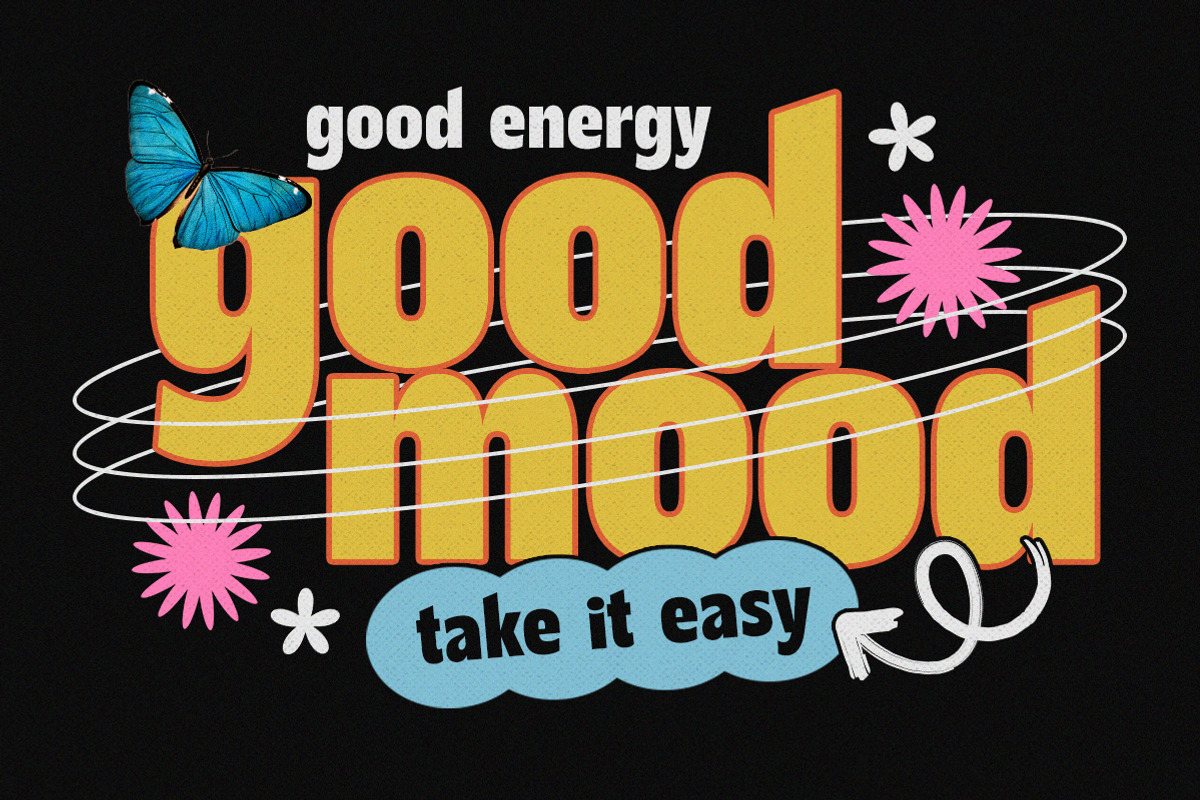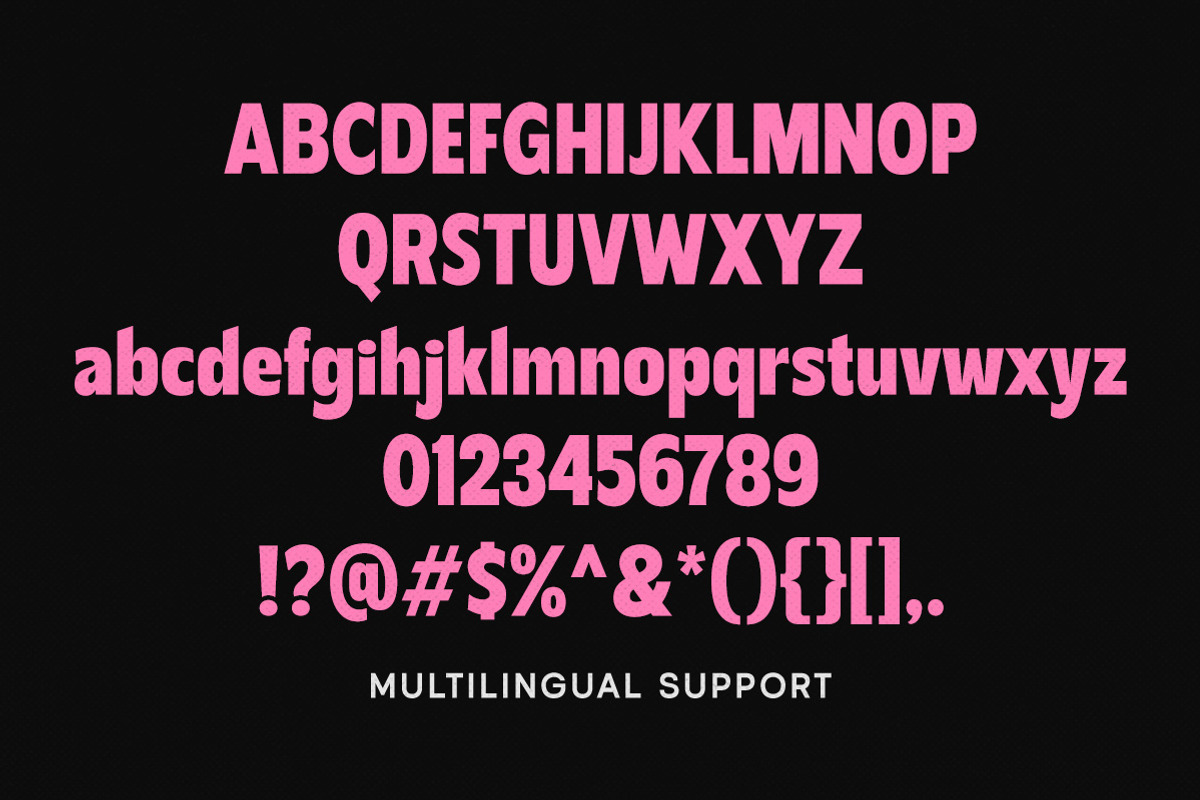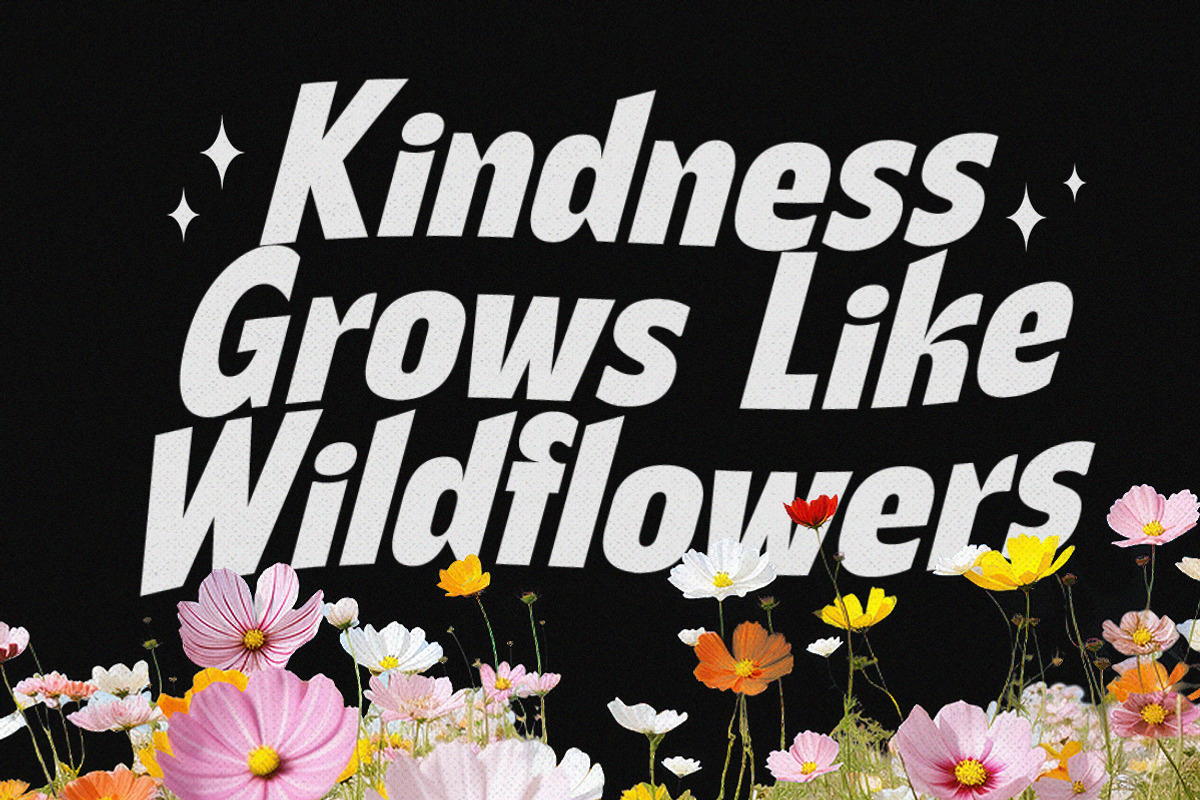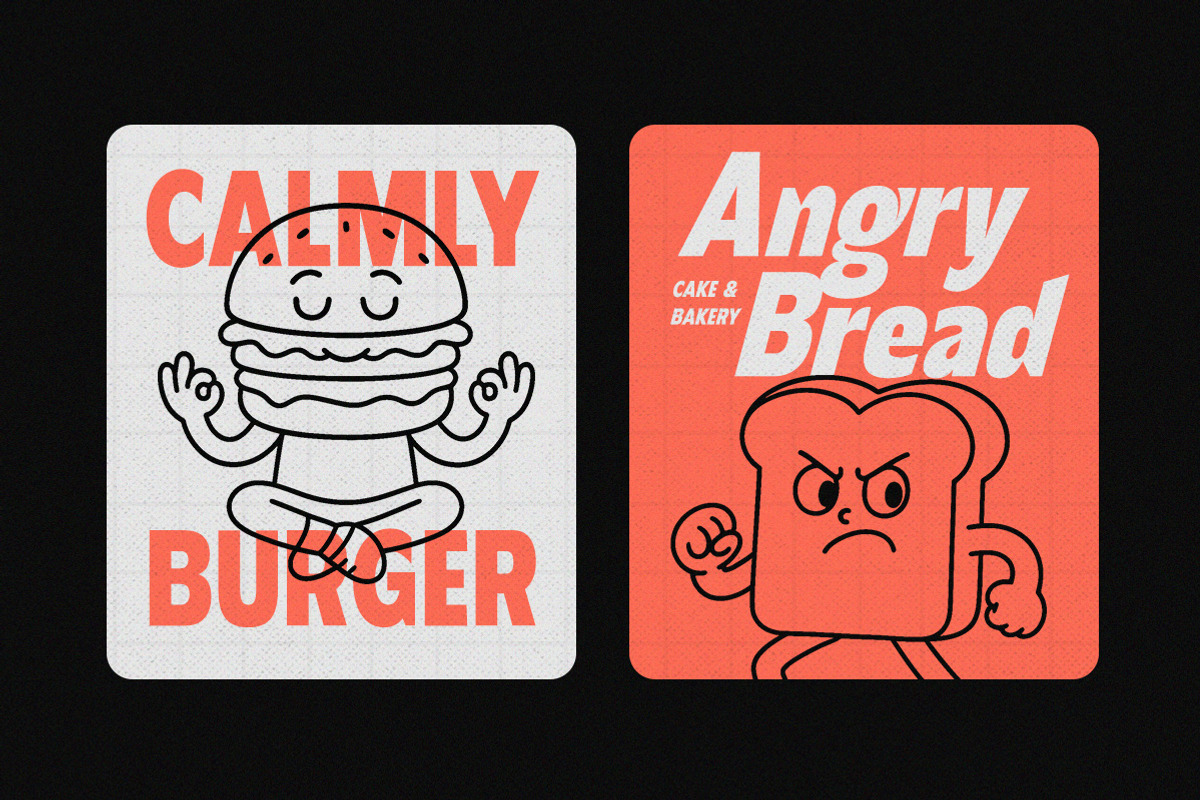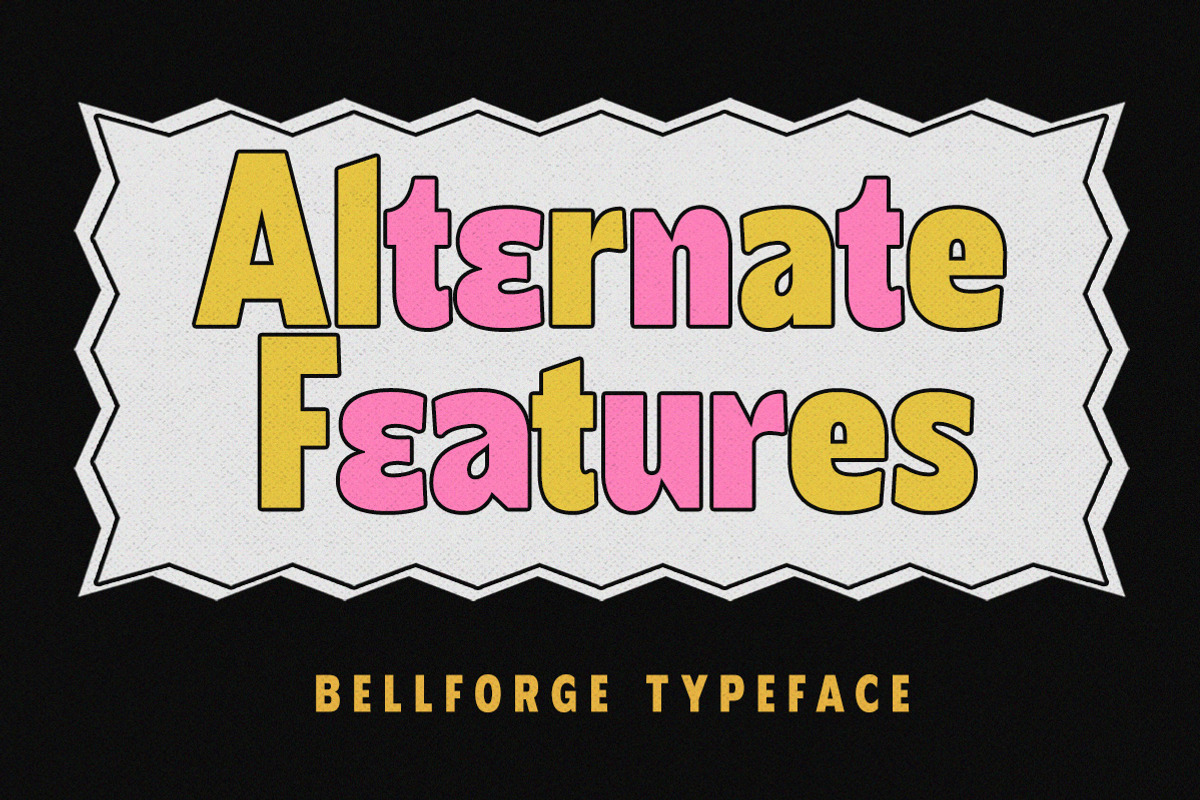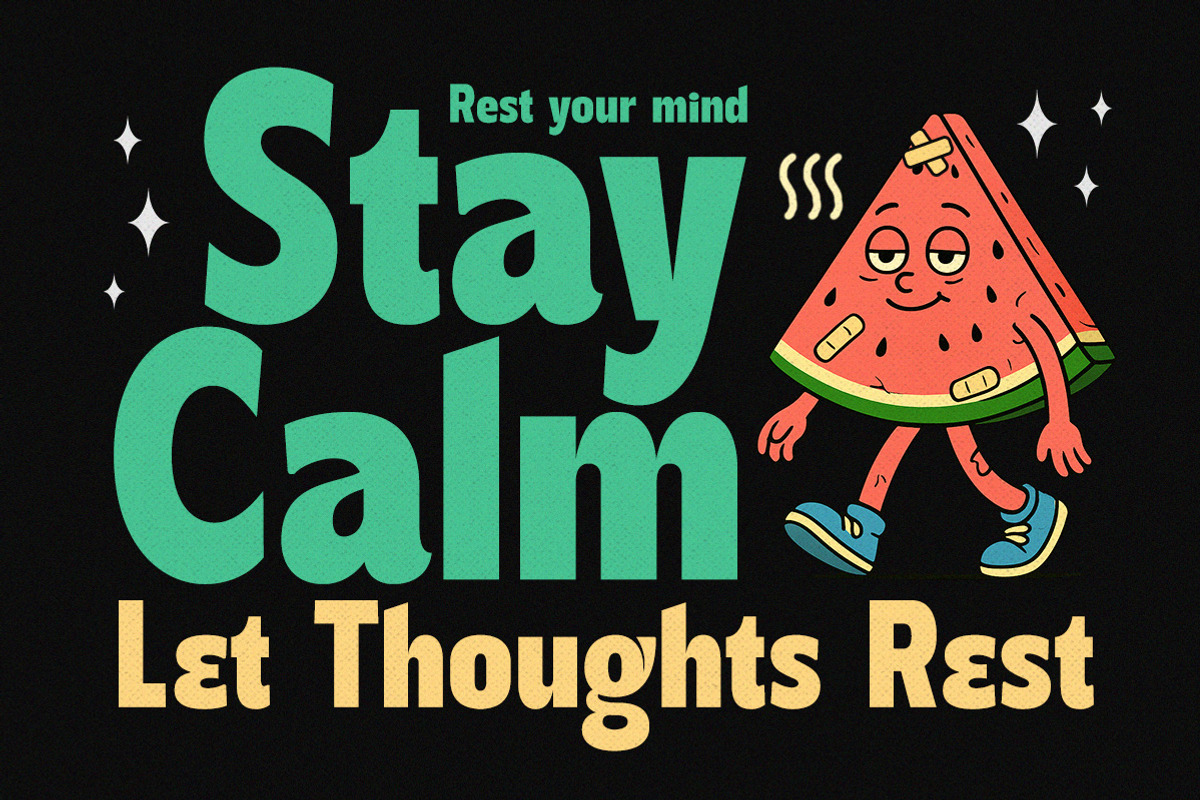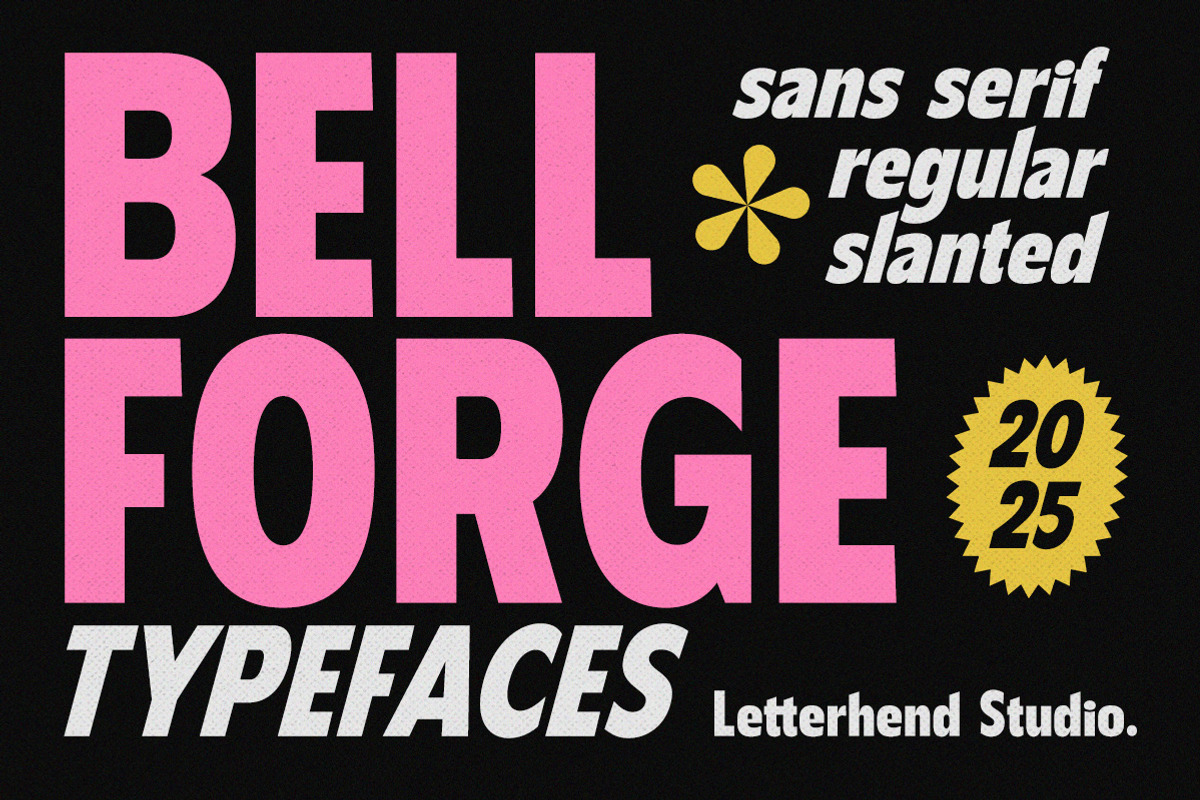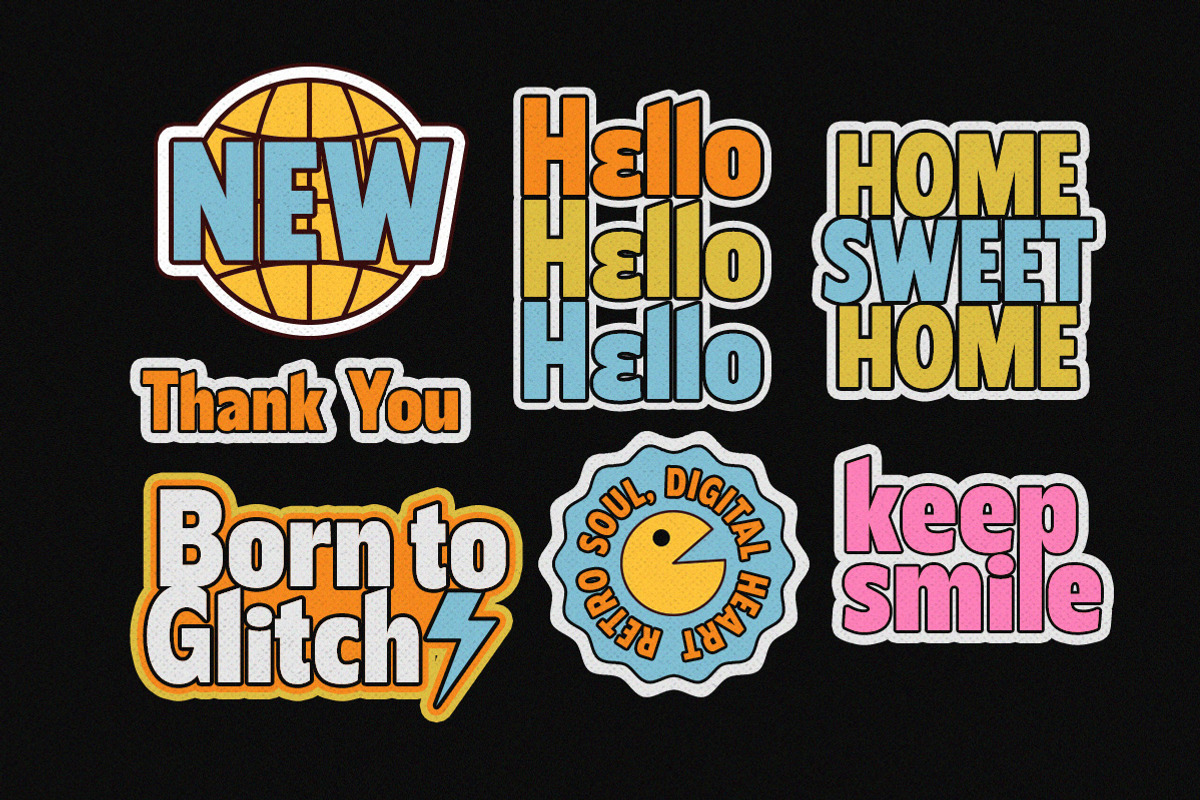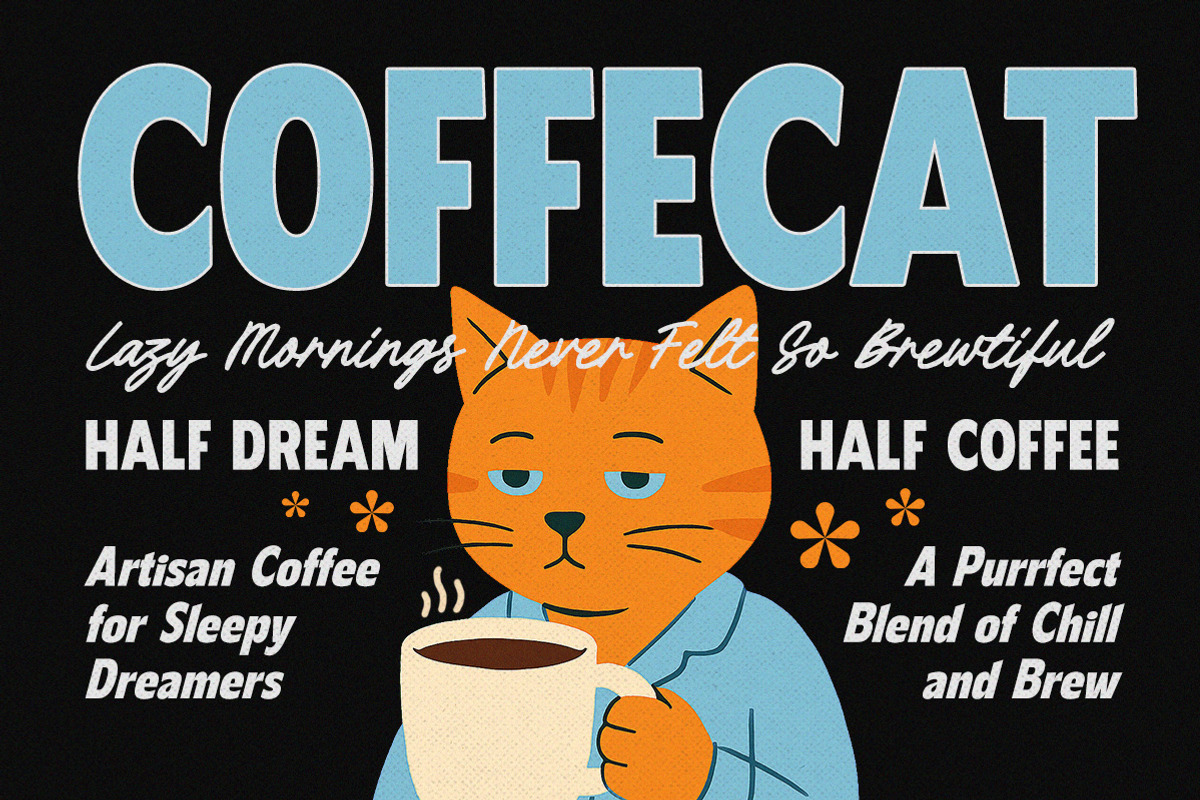
Bellforge Bold Sans
Bellforge is a bold sans serif typeface that blends modern clarity with strong vintage undertones. Its thick, geometric letterforms and clean edges make it perfect for headlines, posters, branding, and editorial layouts that demand attention. Features :